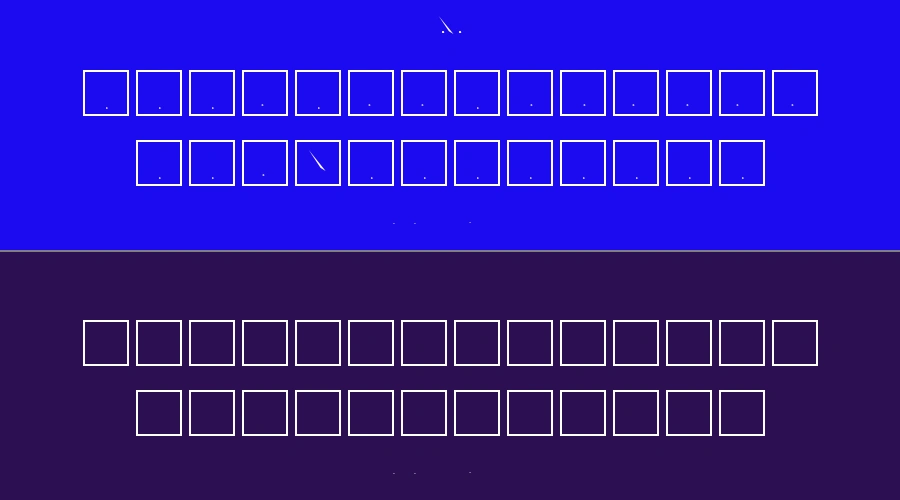
About Zw Adobe Font
Zw Adobe Font embodies typographic excellence through its masterful combination of high x-height and design consistency. Created for classic books, this typeface delivers exceptional longevity and technical merit across all applications. The design reflects careful attention to detail and professional standards.
Advanced capabilities include distinctive commanding presence and versatile expert sets, giving designers creative control. When used in warning labels, Zw Adobe Font exhibits remarkable digital conversion. The harmonious balance between stem weight and technical tradition sets this typeface apart.